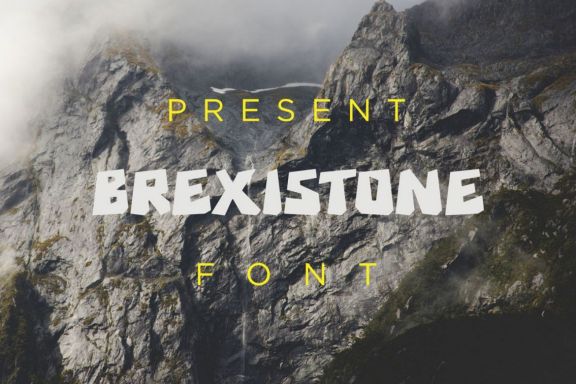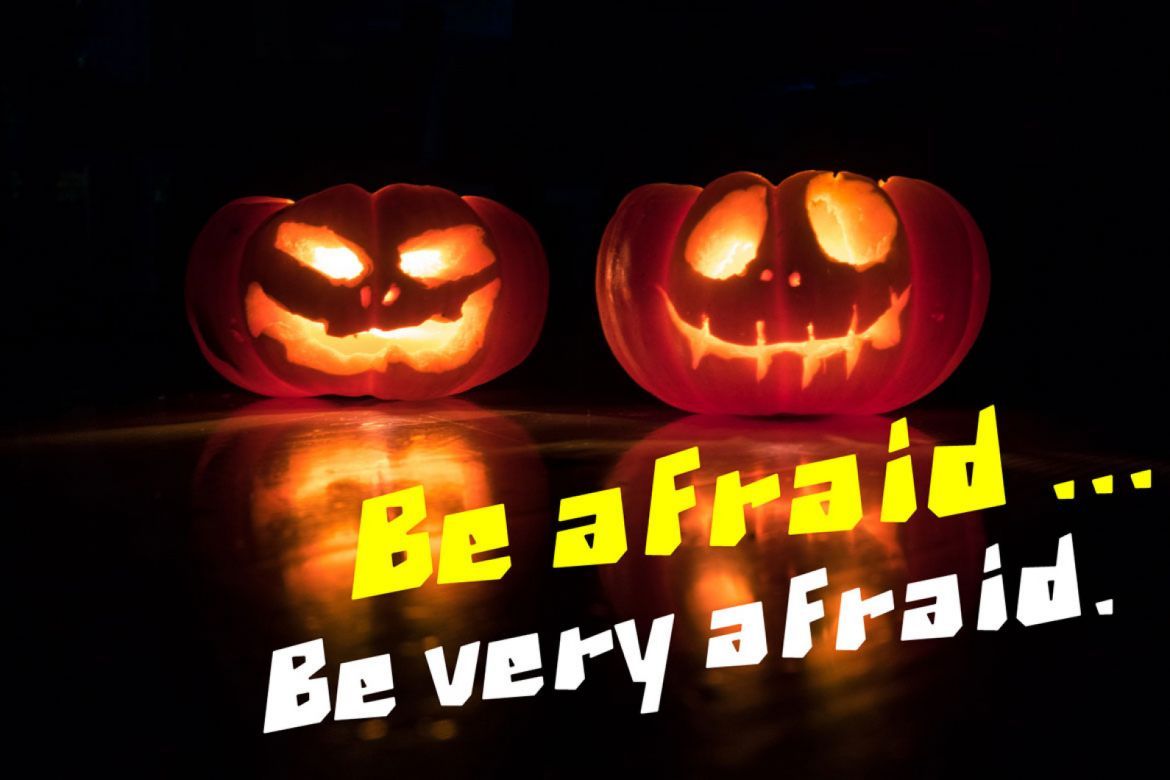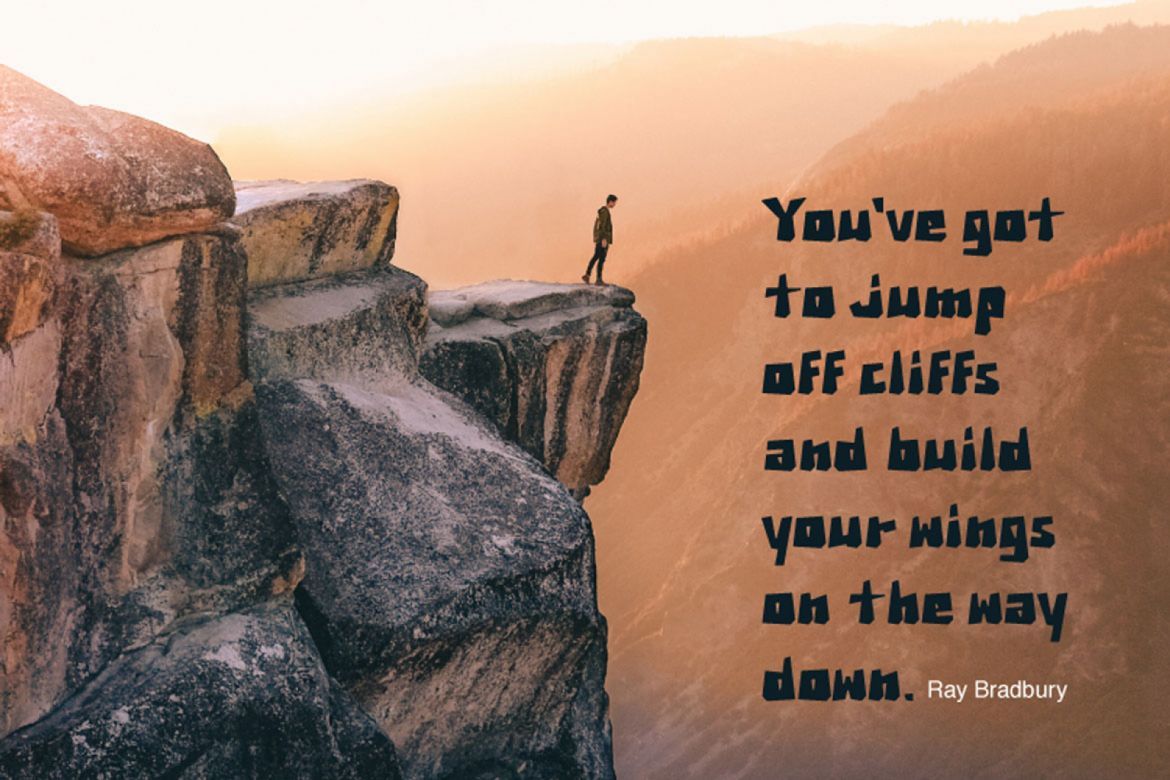
Brexistone Display Font
Hi, Brexistone Font is inspired by tebing breksi cliff, it's unique
This typeface is perfect for adventure design or kids themed works. It's bold, strong, solid and razor sharp Hope you enjoy and thanks
• this typeface is perfect for adventure design or kids themed works
• unique font display